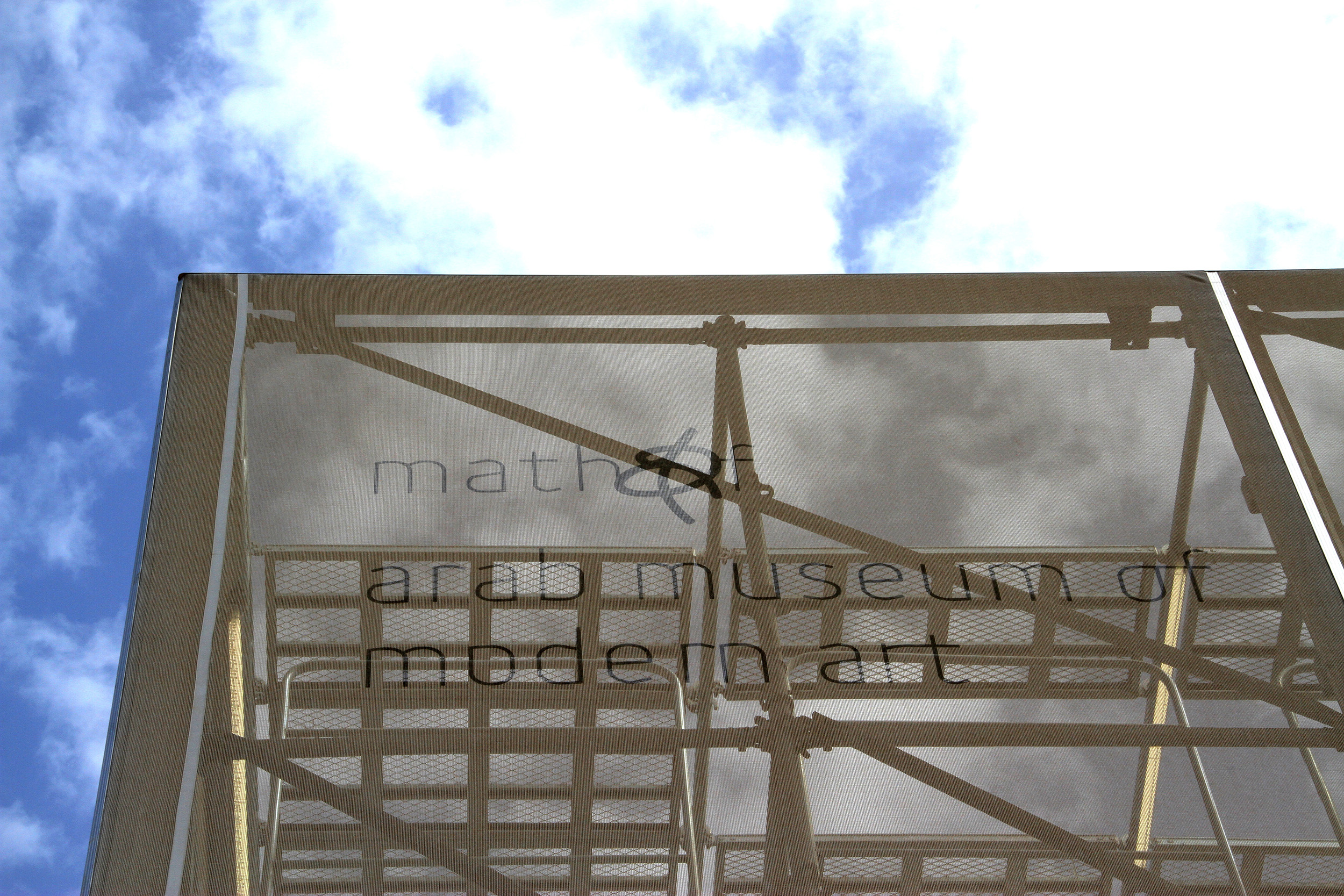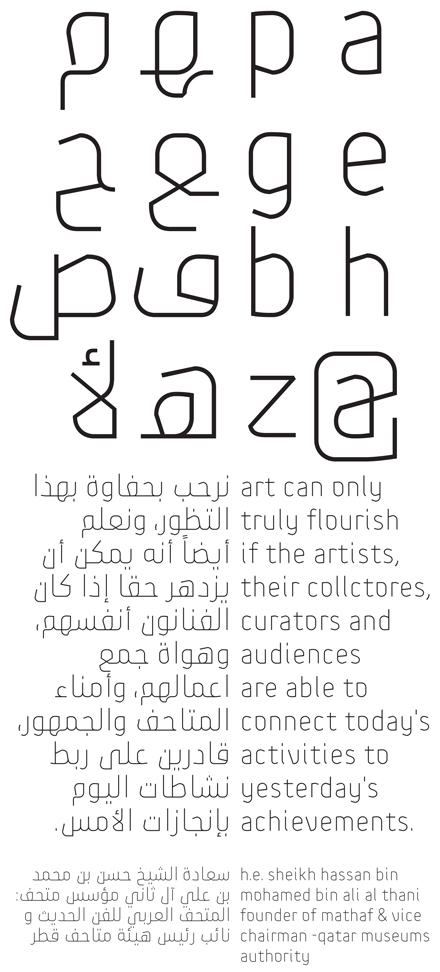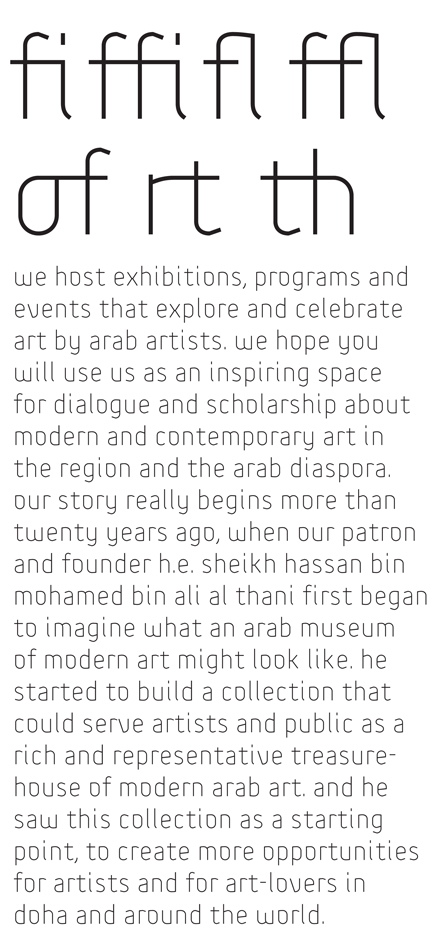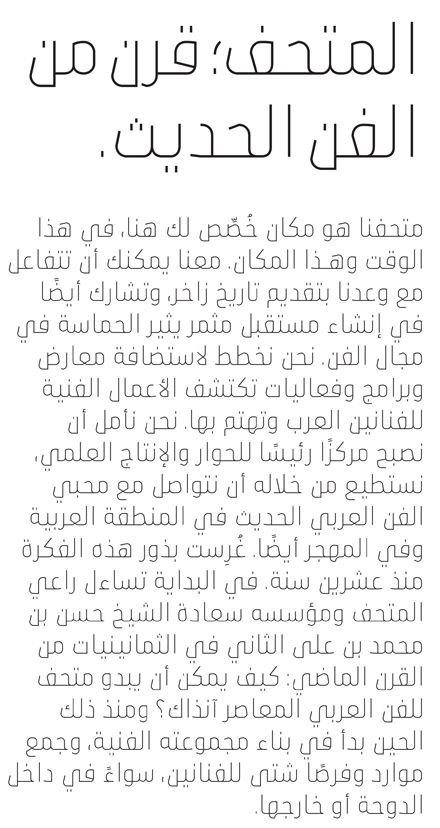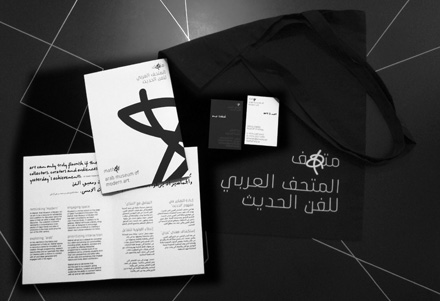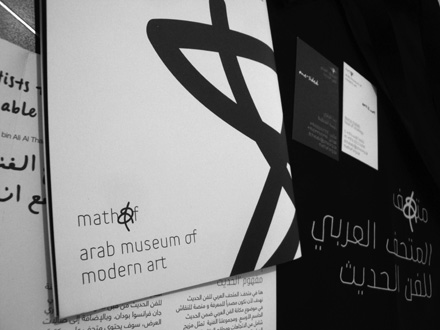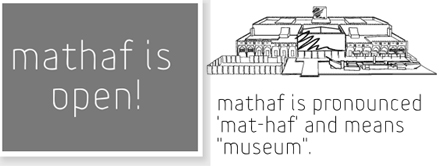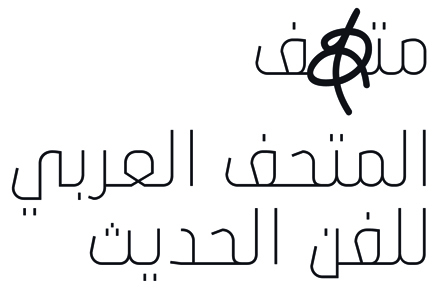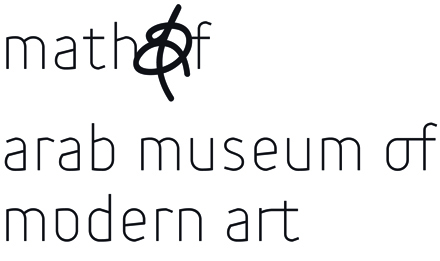
Mathaf Arab Museum of Modern Art opened its doors to contemporary Arab art lovers in December 2010 in Doha, Qatar. The museum hosts exhibitions, programs and events that explore and celebrate art by Arab artists. It is an inspiring space for dialogue and scholarship about modern and contemporary art in the region and the Arab diaspora.
An ultra thin font lends “Mathaf” a contemporary corporate image. A strong tension materializes when the curvy pen strokes meet up with the sharp cuts and corners of the letters. A hybrid modern Kufi-Naskh Arabic letterforms complement an edgy lowercase Latin letters to present a unique bilingual Arabic–English type.
Wolf Olins NY are behind the whole corporate images for the museum. I was asked to create an Arabic/Latin font that they will incorporate in the whole corporate identity of the museum starting with the logotype, signage, publications, advertisings, website, promotional items, etc…
The Arabic and English logotypes of the museum are created using the corporate Mathaf font with the “ ha’ ” in the Arabic logotype and the “a” in the English logotype replaced by hand doodle.
Standard and unique Latin ligatures were drawn in the font in order to make the Latin as mush as possible coherent with the Arabic. Latin ligatures with horizontal letter connections amplified the coherence between the Arabic and Latin script.